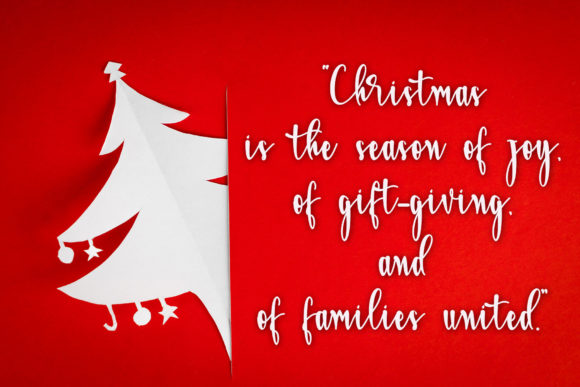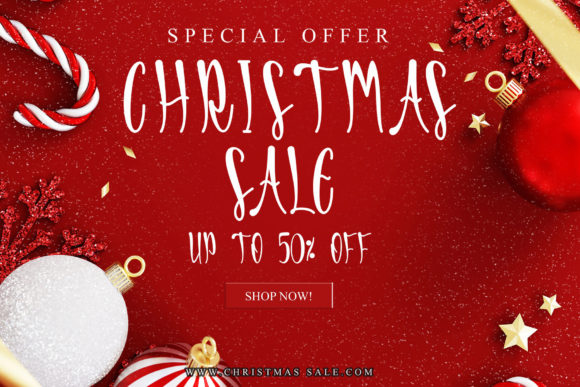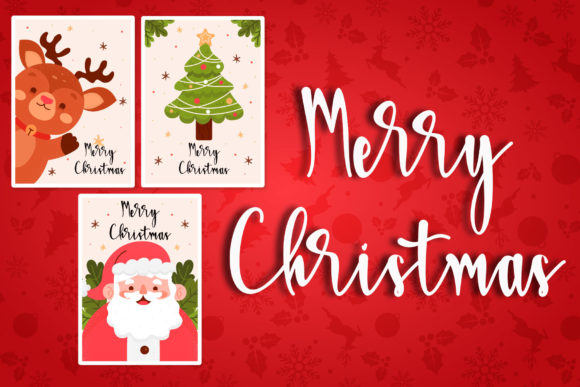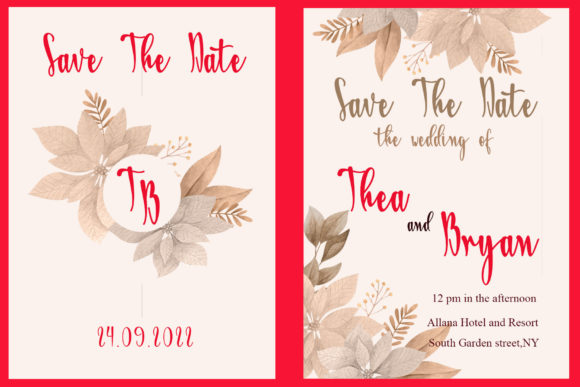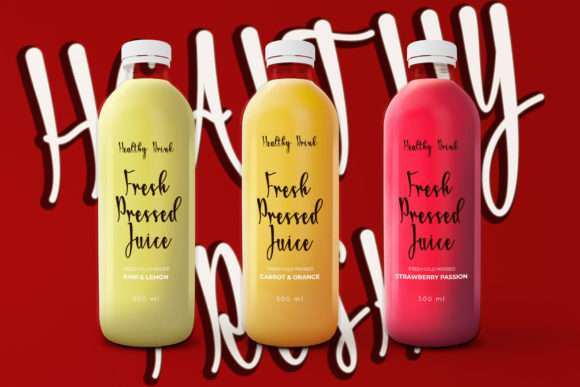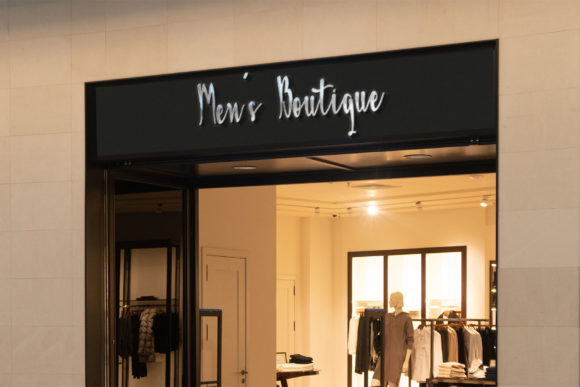
Introducing Christmas Joyday Font: A Dazzling Script Font for the Holiday Season
As the holiday season approaches, designers and crafters are on the lookout for the perfect font to add a touch of festive flair to their projects. Look no further than Christmas Joyday Font, a stunning script font that’s sure to bring joy and cheer to any design. In this article, we’ll take a closer look at the features and benefits of Christmas Joyday Font, and explore how it can elevate your holiday designs.
A Neatly Crafted and Highly Detailed Font
Christmas Joyday Font is a meticulously crafted script font that’s been designed to impress. With its intricate details and elegant lines, this font is perfect for creating beautiful holiday-themed designs that will leave a lasting impression. Whether you’re working on a festive greeting card, a holiday-themed invitation, or a seasonal craft project, Christmas Joyday Font is the perfect choice.
PUA Encoded for Easy Access to Glyphs and Swashes
One of the standout features of Christmas Joyday Font is its PUA (Private Use Area) encoding. This means that you can access all glyphs and swashes with ease, giving you complete creative control over your designs. With PUA encoding, you can effortlessly insert special characters, ligatures, and other decorative elements to add an extra touch of personality to your designs.
Christmas Joyday Font is incredibly versatile, making it perfect for a wide range of design projects. Here are just a few ideas to get you started:
- Festive greeting cards and invitations
- Holiday-themed craft projects, such as paper crafting and scrapbooking
- Seasonal signage and displays
- Packaging and labeling for holiday-themed products
Why Choose Christmas Joyday Font?
So why choose Christmas Joyday Font for your holiday designs? Here are just a few reasons:
- Unique and eye-catching: Christmas Joyday Font is a one-of-a-kind script font that’s sure to grab attention.
- Elegant and sophisticated: This font exudes elegance and sophistication, making it perfect for high-end designs.
- Easy to use: With PUA encoding, you can access all glyphs and swashes with ease, making it simple to create stunning designs.
- Versatile: Christmas Joyday Font can be used for a wide range of design projects, from festive greeting cards to seasonal signage.
Tips for Using Christmas Joyday Font
Here are a few tips for getting the most out of Christmas Joyday Font:
- Experiment with different sizes and colors: Christmas Joyday Font looks great in a variety of sizes and colors, so don’t be afraid to experiment and find the perfect combination for your design.
- Pair with complementary fonts: Try pairing Christmas Joyday Font with complementary fonts to create a unique and visually appealing design.
- Use glyphs and swashes: Take advantage of the PUA encoding and use glyphs and swashes to add an extra touch of personality to your design.
Christmas Joyday Font is a dazzling script font that’s perfect for adding a touch of festive flair to your holiday designs. With its intricate details, elegant lines, and PUA encoding, this font is sure to bring joy and cheer to any project. Whether you’re a designer, crafter, or DIY enthusiast, Christmas Joyday Font is a must-have for the holiday season.